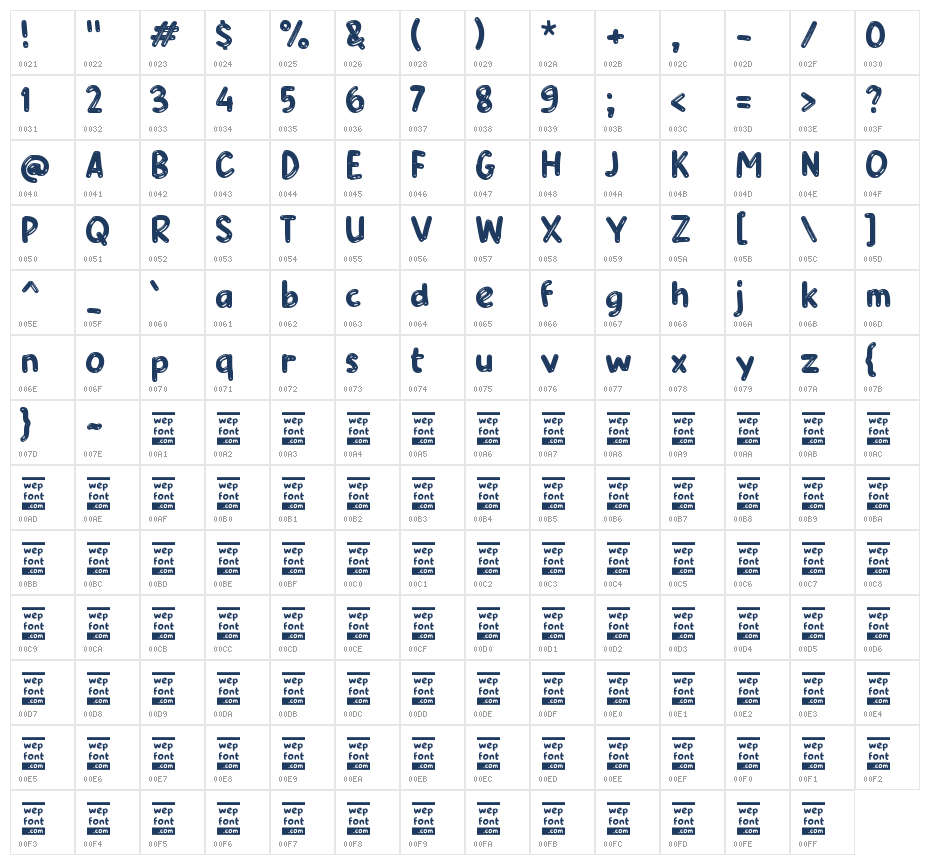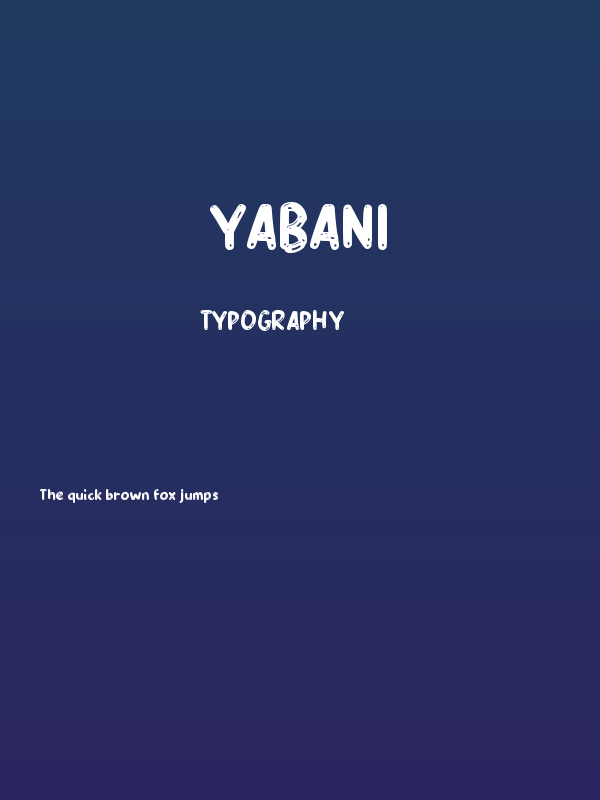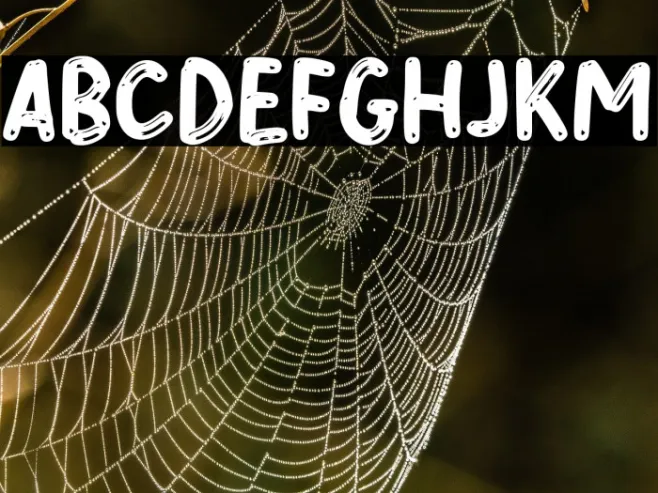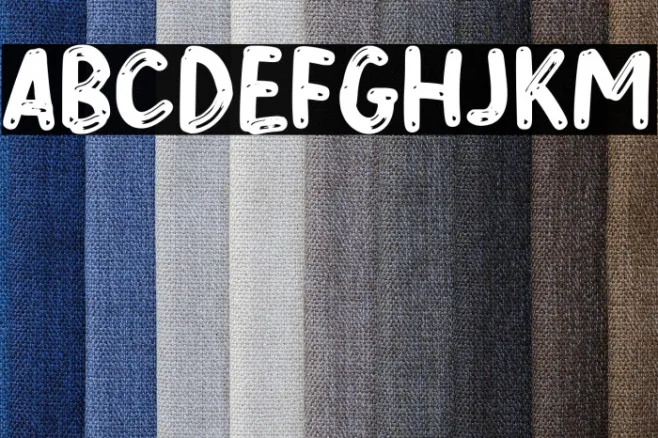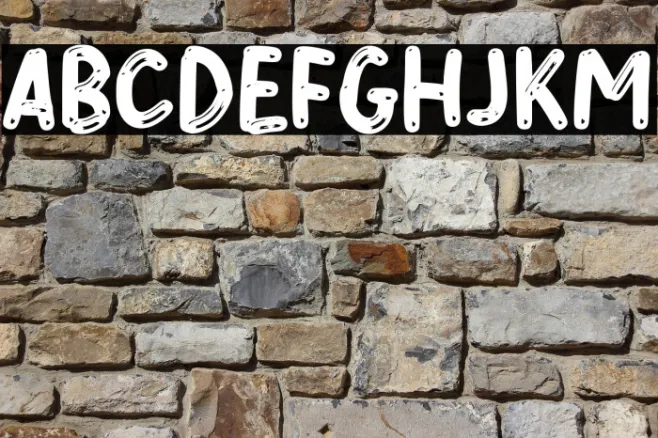
Yabani Font
Yabani Description
Playful, handwritten style font with a textured, brush-like appearance.
| Overall Style | Playful, Casual, Handcrafted |